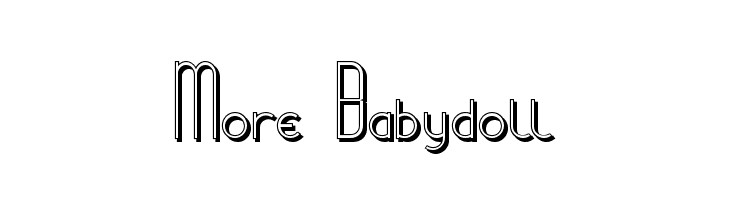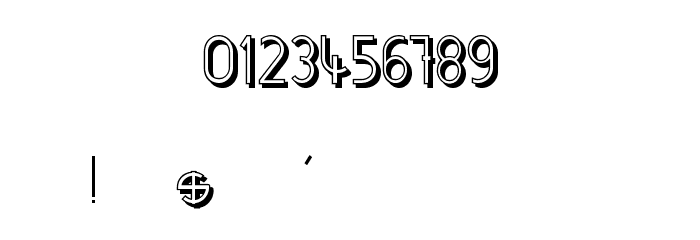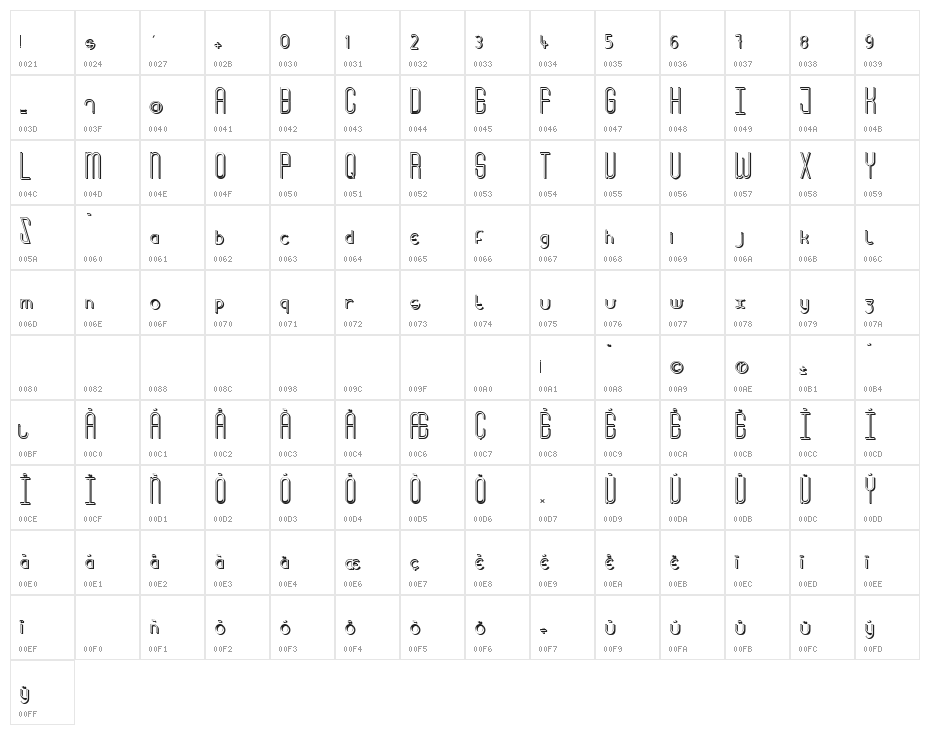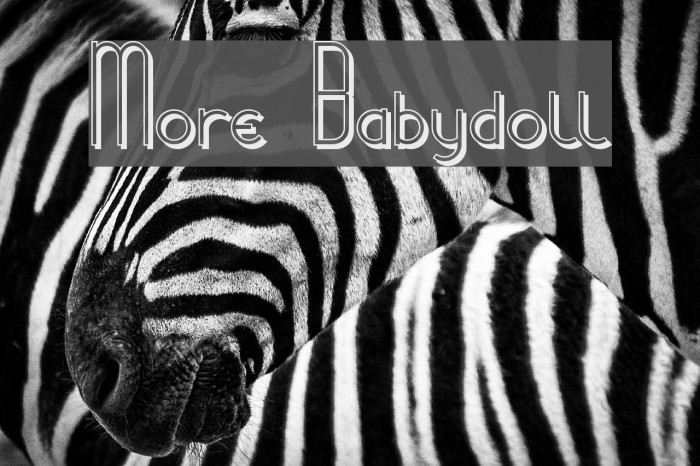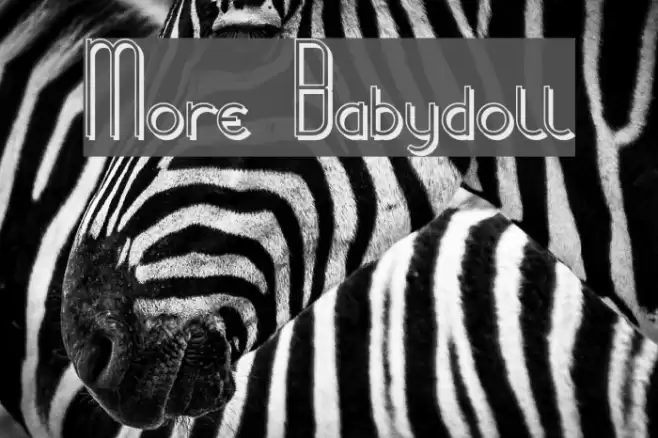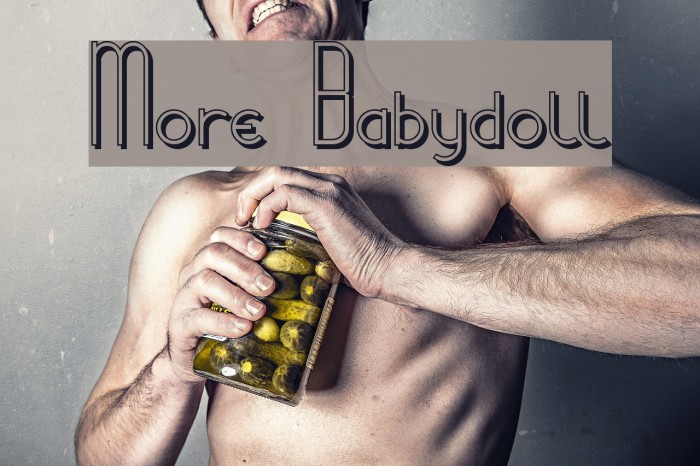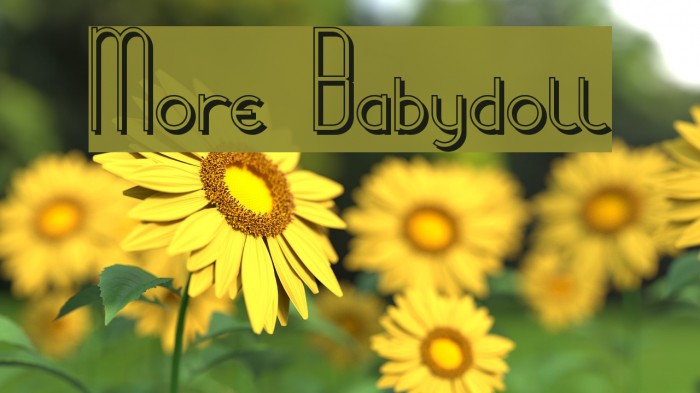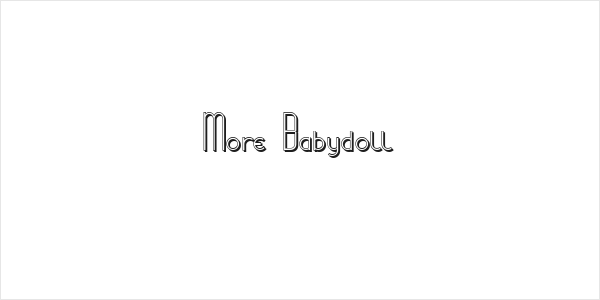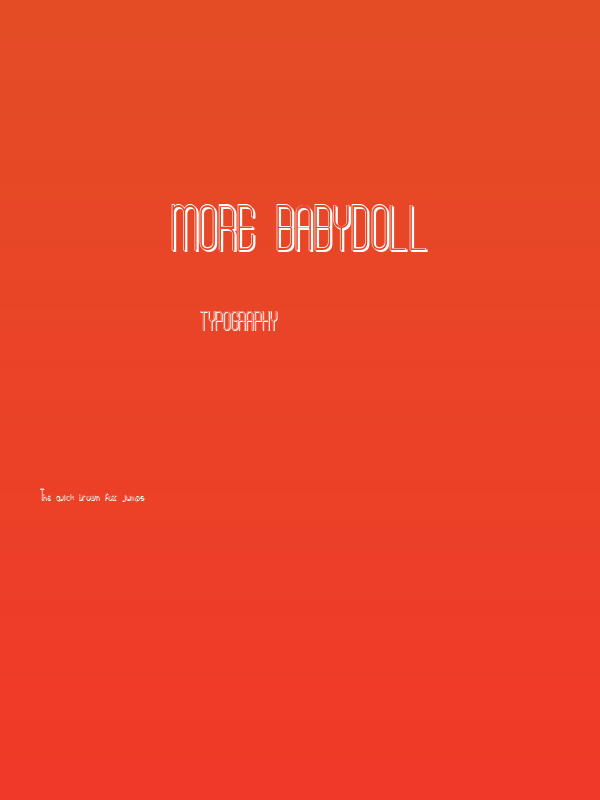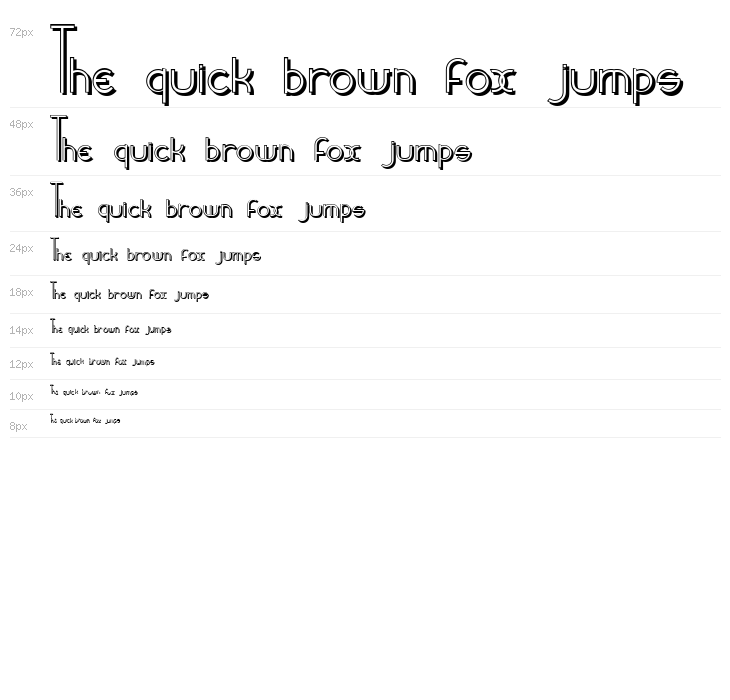
More Babydoll Font
This font features a unique and playful design with a modern twist. The uppercase letters are tall and narrow, with a distinct double-line effect that gives them a dimensional appearance. The lowercase letters maintain a similar style but are more rounded, providing a softer look. The numbers are consistent with the overall design, featuring the same double-line effect. Special characters are creatively integrated, maintaining the font's playful and modern aesthetic. This font is ideal for projects that require a bold and eye-catching display, such as posters, logos, and headlines.
Proposed ProjectsIdeal for posters, logos, headlines, and any project needing a bold, eye-catching display.